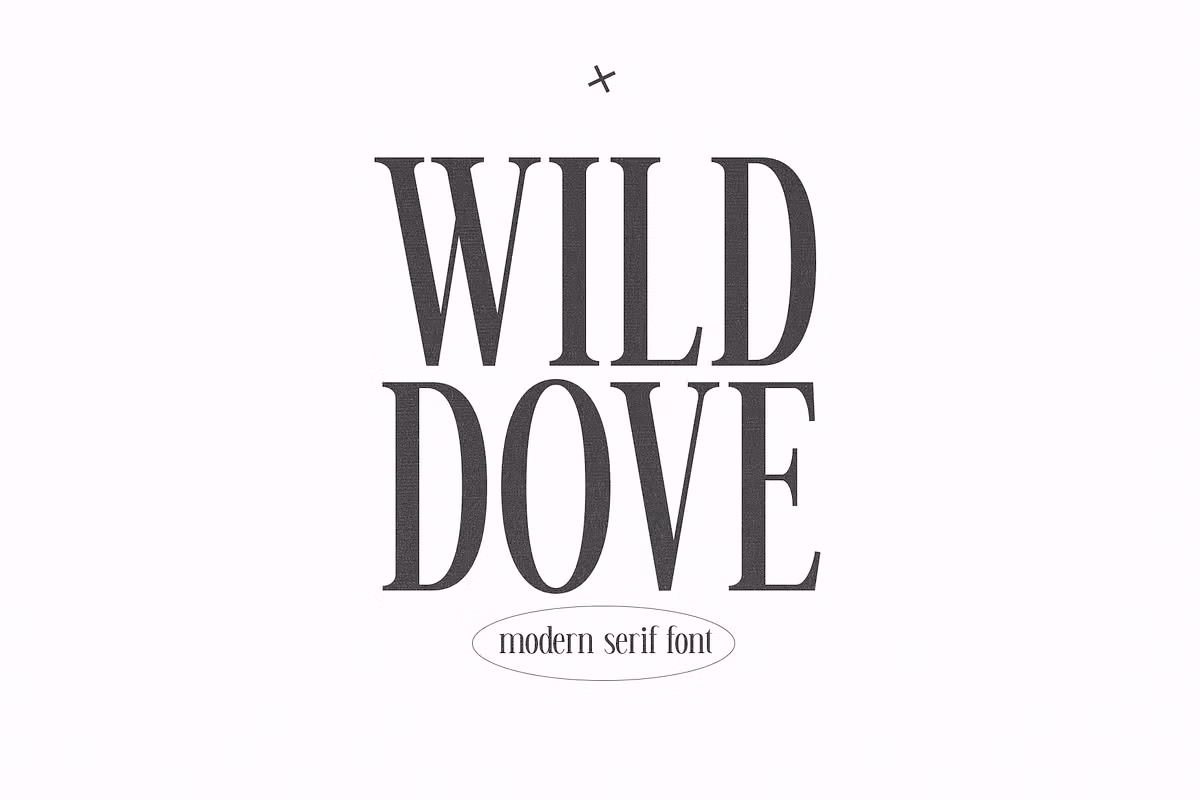
Wild Dove | Tall Serif Font Free Download
Wild Dove | Tall Serif Font Free Download is a sleek and elegant typeface featuring elongated letterforms and refined serif details. Perfect for editorial layouts, fashion branding, logo design, and upscale packaging, it adds height and sophistication to any visual concept. Please note that you must purchase this font for commercial use, but it is available as a free download for testing purposes. Make a bold and graceful statement in your next project with Wild Dove | Tall Serif Font Free Download, and let your typography soar with timeless style.